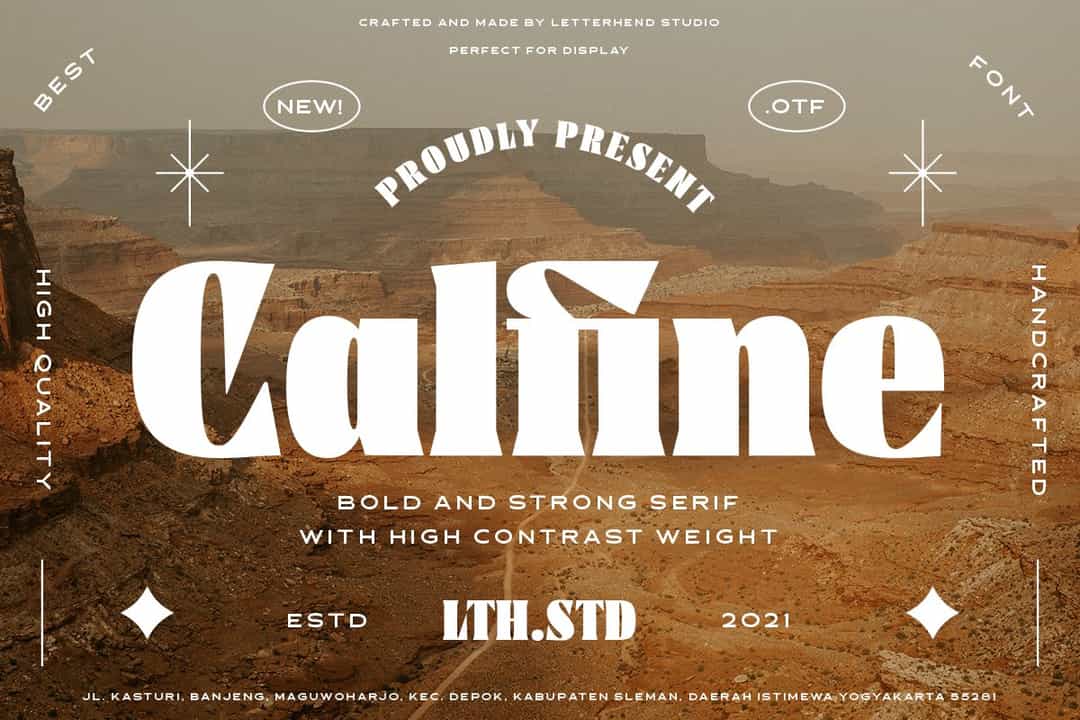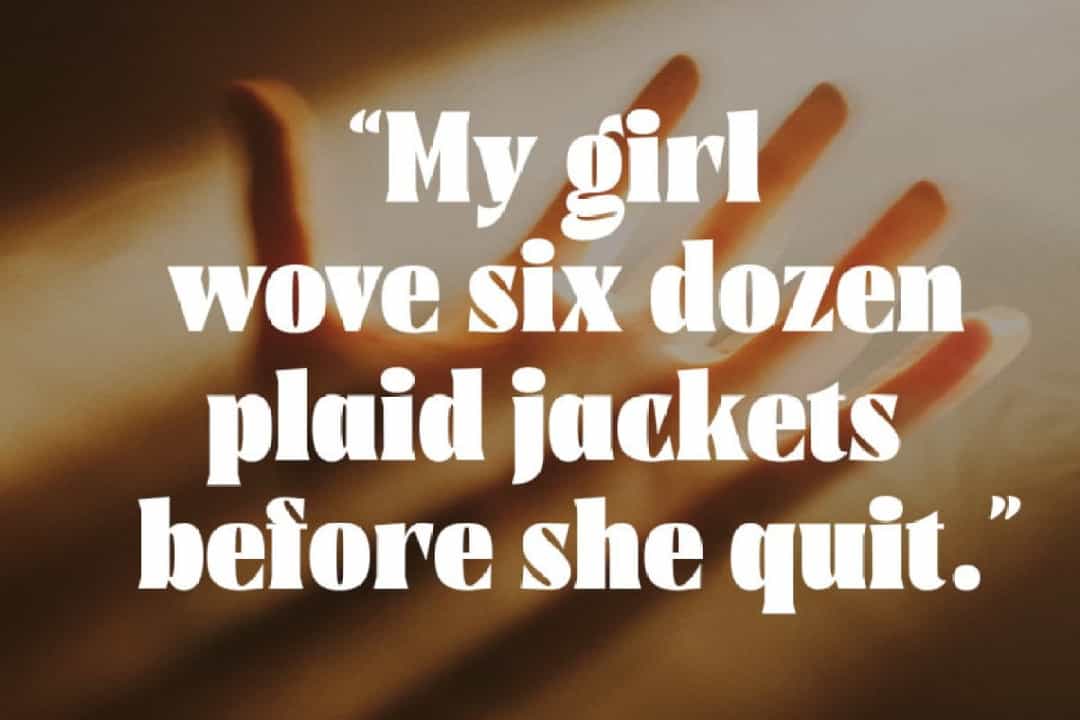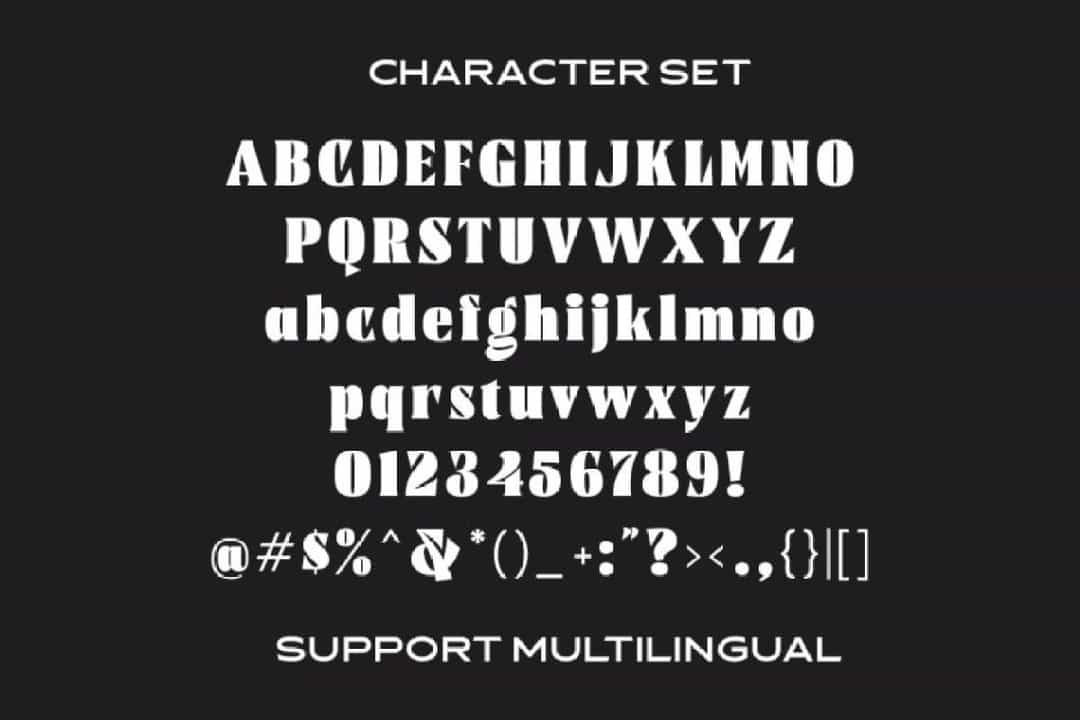
Calfine is an eye-catching serif font featuring high contrast weight. Perfect for introduction or display purposes, its stunning appearance stands out from the crowd and creates an eye-catching introduction or display piece.